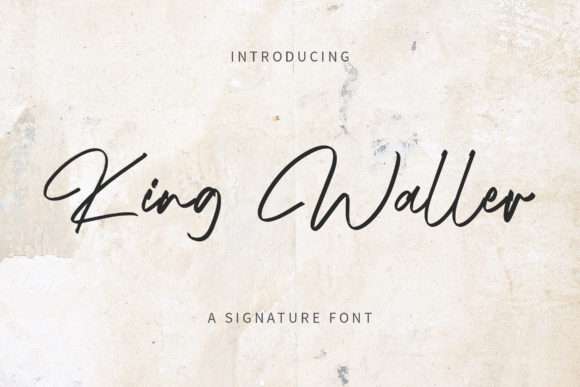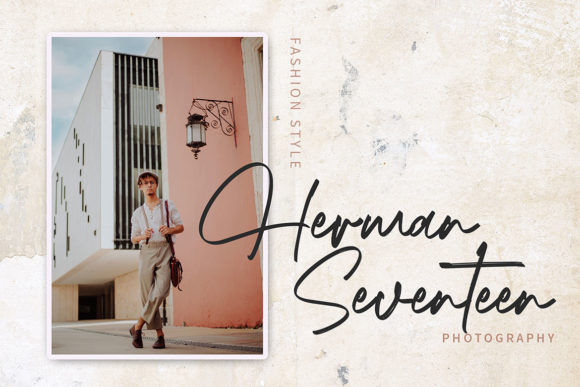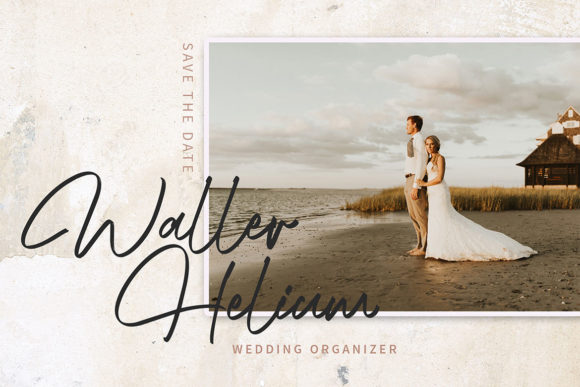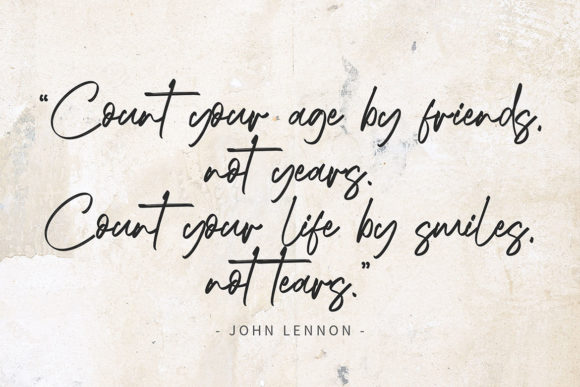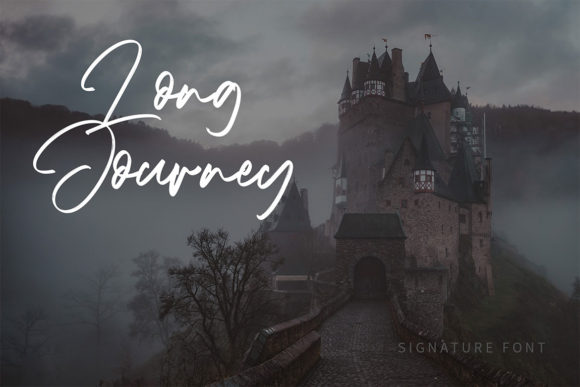
About King Waller Font
King Waller is a stunning and distinctive handwritten font that adds a touch of elegance and sophistication to your DIY projects. With its thin and flowing letterforms, this font exudes a sense of grace and beauty, making it a perfect choice for creating memorable and visually appealing designs.
The unique charm of King Waller lies in its delicate and fluid strokes, which give your DIY projects a sense of refinement and creativity. Whether you’re designing handmade cards, scrapbook pages, invitations, or any other craft project, King Waller brings a touch of uniqueness and artistic flair.
The versatility of King Waller allows it to complement a variety of themes and styles. Its thin and flowing nature makes it suitable for both formal and informal designs. It can be used to create elegant wedding invitations, stylish party decorations, artistic typography art, or any DIY project that requires a touch of sophistication.
While King Waller adds a sense of beauty and intricacy to your designs, it’s important to consider legibility, especially when using smaller font sizes. Due to its thin strokes, some characters may appear finer, and it’s important to ensure readability in your final designs. Adjusting the size and spacing of the font can help maintain legibility and clarity.
To enhance the visual impact of King Waller, consider pairing it with contrasting fonts. Combining it with bold sans-serif fonts or serif fonts can create a pleasing contrast and add emphasis to specific elements in your design.
Overall, King Waller is a beautiful and unique font that breathes life into your DIY projects. Its thin and flowing letterforms add an elegant touch, while its versatility allows it to adapt to various creative endeavors. So, unleash your creativity and let King Waller bring your DIY projects to life with its graceful and captivating style!